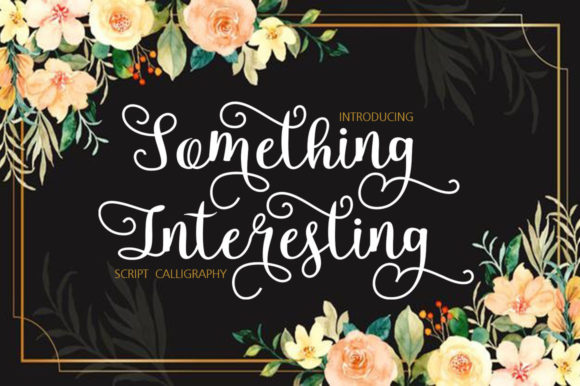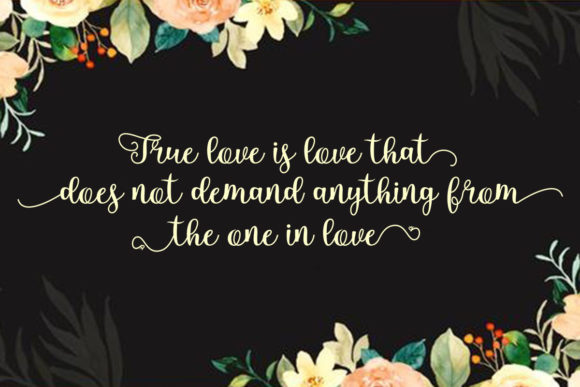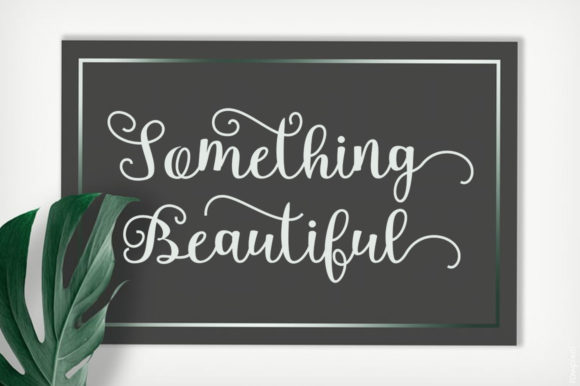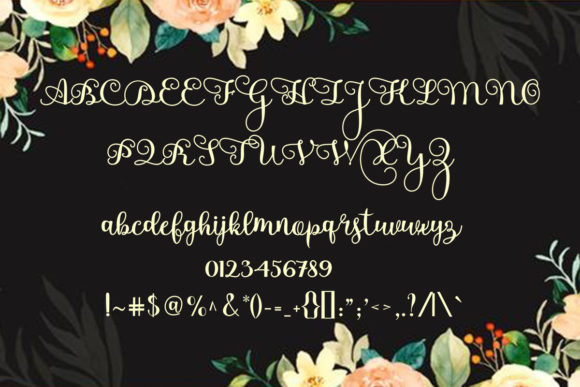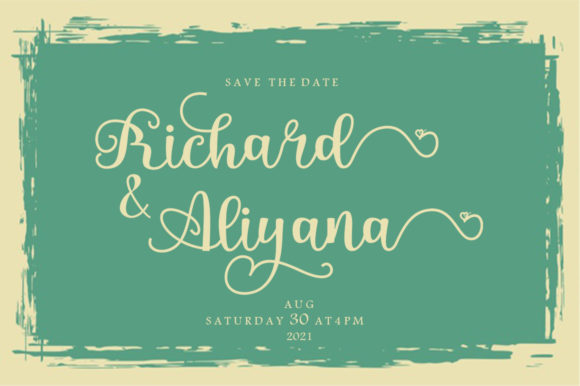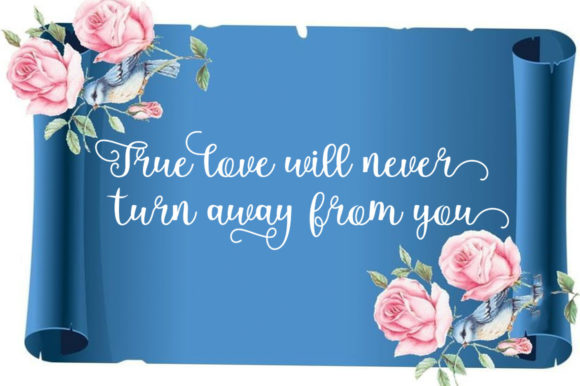
About Something Interesting Font
Something Interesting an equally sophisticated and bold handwritten font that’s great for delivering any message with confidence, authenticity and charm. This font is PUA encoded which means you can access all glyphs and swashes with ease!